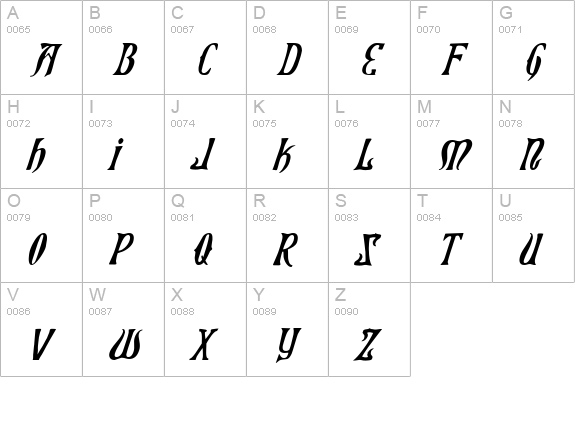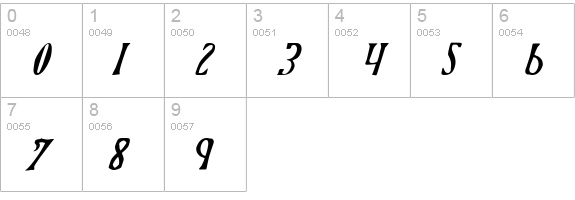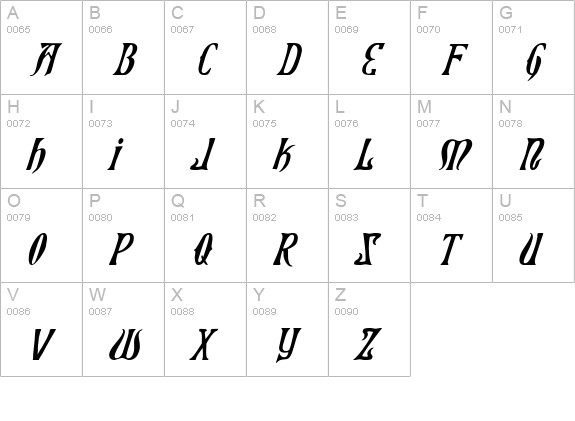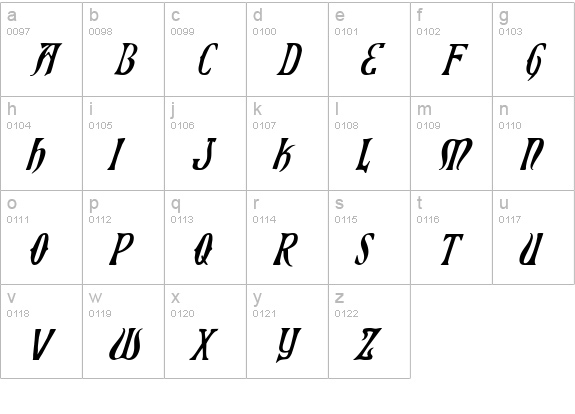
Xiphos Italic is a distinctive, italic variant in the Xiphos typeface family \xE2\x80\x94 well suited to design and typography projects.
Xiphos Italic is a stunning and elegant font that exudes sophistication and modernity. Its sleek and stylish design is perfect for adding a touch of class to any project, whether it be for branding, advertising, or design work. The italicized characters of Xiphos Italic flow effortlessly, creating a dynamic and visually engaging look. What makes Xiphos Italic even more appealing is that it is available for free download at FontsMarket.com. This means that you can access this beautiful font without any cost, making it a valuable addition to your font library. With its versatility and eye-catching appeal, Xiphos Italic is sure to elevate your design projects and help you achieve a polished and professional look.